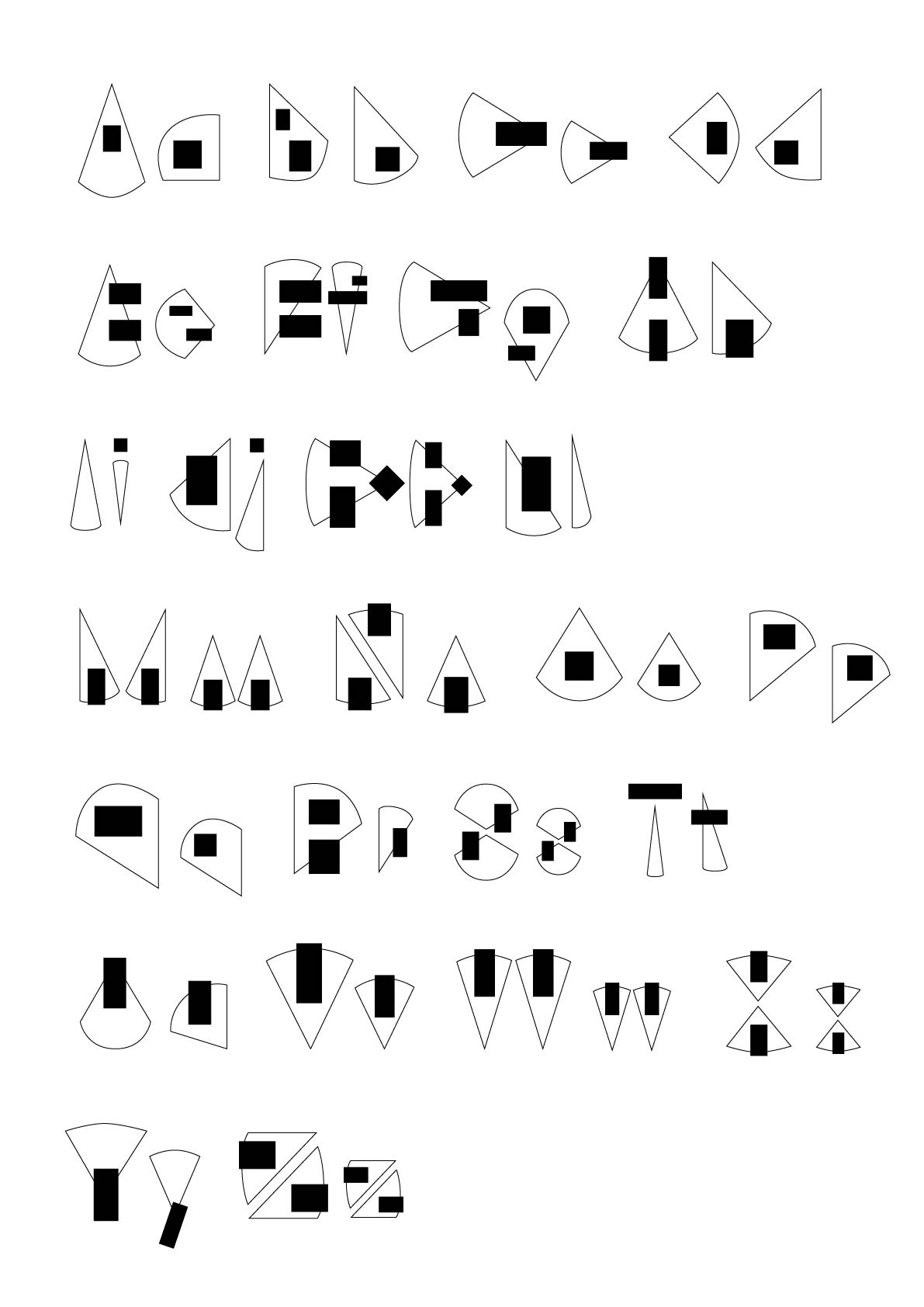
My Typeface focuses on the functional aspect of the gallery. When I thought about how artworks are lit in the space, I became interested in the idea of using light as the main design element. A rectangle could represent the artwork, while the shapes of spotlight beams could interact with it to form letter structures. This creates a typeface that reflects both the display environment and the role of lighting in shaping the viewer's experience.